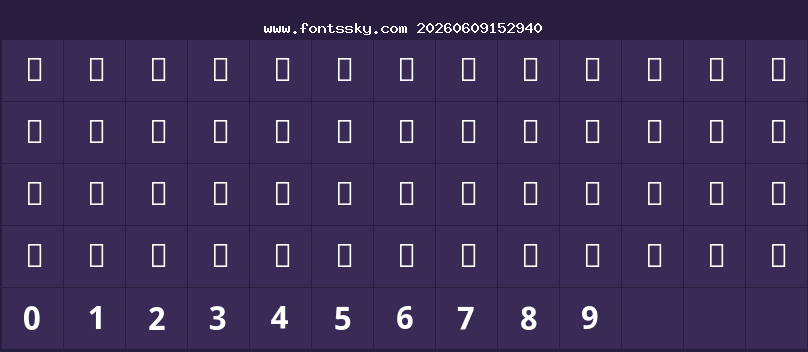
• Designer: Jelle Bosma - Monotype Design Team, Universal Thirst
• Manufacturer: Monotype Imaging Inc.
• Description: Designed by Monotype design team.
About Noto Sans Gujarati UI.ttf
Noto Sans Gujarati UI.ttf is a modern, elegant sans-serif font designed for ultimate readability and visual harmony. Perfect for branding, headlines, web design, and print materials.